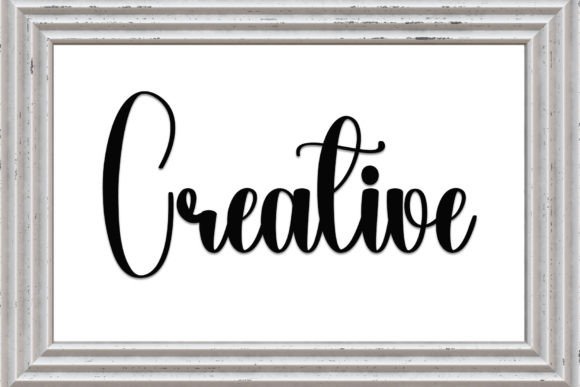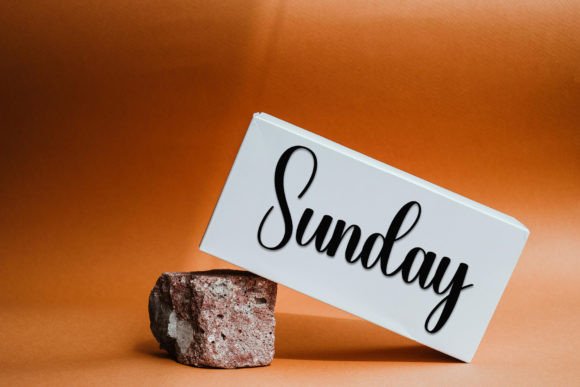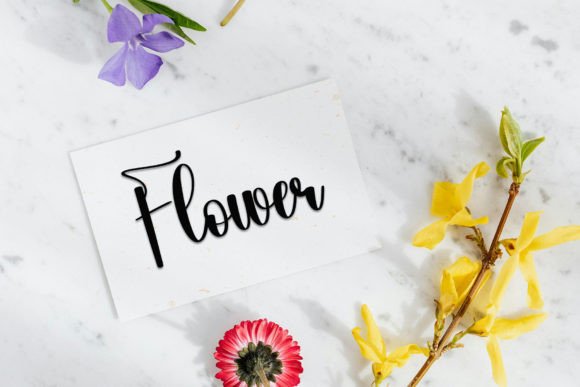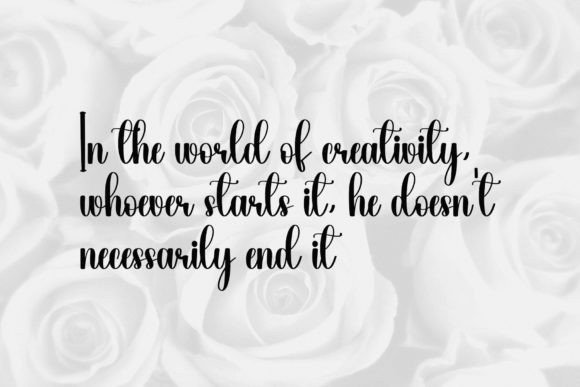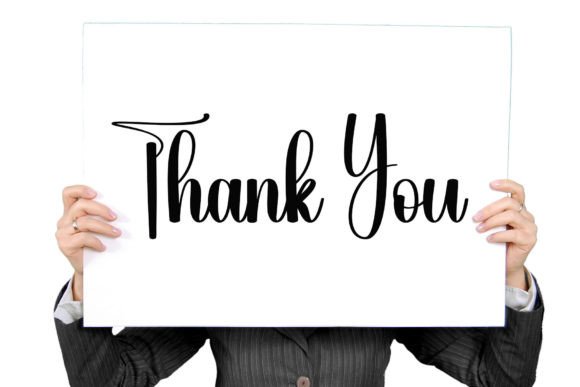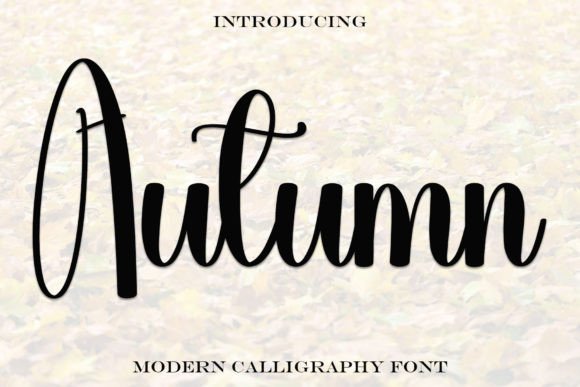
The Perfect Autumn Font: Elevate Your Designs with Timeless Elegance
As designers, we’ve all been there – stuck on a project, searching for that one font that will make everything come together. I recall working on a fall-themed branding project, and no matter how hard I tried, I just couldn’t find the right font to capture the essence of the season. That’s when I discovered the Autumn Font, a trendy handwritten font that has since become a staple in my design toolkit.
A Personal Review: What I Love About Autumn Font
The Autumn Font is a game-changer for designers looking to add a touch of elegance and class to their projects. Here are a few things that I absolutely love about this font:
- ✨ Contemporary atmosphere: The Autumn Font has a modern feel that makes it perfect for designs that require a fresh and trendy look.
- ✅ Impeccable form: The font’s classic calligraphy inspiration ensures that it remains legible and visually appealing, even at smaller sizes.
- 💫 Elegant and versatile: The Autumn Font works beautifully for a wide range of design projects, from branding and advertising to packaging and editorial design.
While the Autumn Font is an excellent choice for many design projects, there are a few minor quirks to be aware of:
- 🤔 Limited multilingual support: The Autumn Font may not support all languages or special characters, so be sure to check the font’s specifications before use.
- ⚠️ Overshooting: Some users have reported issues with overshooting when using the font at very large sizes. However, this can be easily addressed by adjusting the font’s settings or using a different font style.
The Autumn Font was inspired by the timeless beauty of classic calligraphy. Its designer, a typography enthusiast, sought to create a font that would capture the essence of traditional lettering while still feeling modern and fresh. The result is a font that exudes elegance and sophistication, making it perfect for a wide range of design projects.
| What is the Autumn Font? | The Autumn Font is a trendy handwritten font inspired by classic calligraphy, perfect for designs that require elegance and sophistication. |
| Is the Autumn Font suitable for body text? | While the Autumn Font is beautiful, it’s best suited for headlines and titles. For body text, consider using a more legible font. |
| Does the Autumn Font support OpenType features? | Yes, the Autumn Font supports OpenType features like ligatures and stylistic alternates, allowing for greater creative control. |